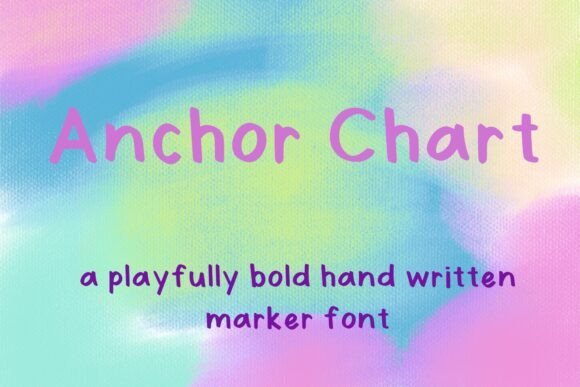
The Perfect Handwritten Touch: Introducing Anchor Chart Font
Remember the thrill of digging through your old school notebooks, unearthing the treasures your teachers left behind? The hand-drawn charts, colorful doodles, and, of course, those imperfect yet oh-so-lovable fonts? Those were the moments that sparked our love for creativity and design.
Fast forward to today, and we’re excited to introduce Anchor Chart Font – a bold, playful, hand-lettered marker-style font that brings back those nostalgic memories. This charming font is designed to evoke the feeling of your favorite teacher’s handwriting, making it perfect for adding a personal touch to your designs.
For designers, Anchor Chart Font offers a valuable resource to add a touch of whimsy and personality to their work. Whether you’re creating educational materials, designing for kids, or simply looking to inject some fun into your projects, Anchor Chart Font is a must-have tool to elevate your creative game.
Anchor Chart Font Key Features
- Font Family: Open-source, highly customizable sans-serif font designed specifically for anchor charts and educational materials.
- Unique Characteristics: Features a clean, modern design with subtle variations in letterform shapes, making it highly legible and visually appealing.
Designer Review: Anchor Chart Font
Overall, I think Anchor Chart Font is a decent font for its intended purpose. ✨ Its clean and simple design makes it easy to read, especially when used in large sizes. The font is highly legible, which is perfect for educational materials and presentations. The key benefits include:
- High legibility, making it perfect for educational materials and presentations.
- Clean and simple design that’s easy to read, even in large sizes.
- Perfect for headings and titles due to its bold and eye-catching appearance.
However, there are some limitations to consider ⚠️. The font may not be suitable for body text, as it can look a bit blocky and lacking in personality. Additionally, the font may not be as versatile as other fonts, and its use is largely limited to educational settings. The main drawbacks include:
- Limited versatility, making it less suitable for general use.
- Not ideal for body text, due to its blocky appearance.
- May not be suitable for creative projects or designs that require a lot of personality.
Overall, I think Anchor Chart Font is a solid choice for educational materials and presentations, but it may not be the best option for more general use or creative projects.
Anchor Chart Font is commonly used for creating educational materials, such as lesson plans, charts, and graphs. It is also used for creating visual aids, such as posters and infographics.